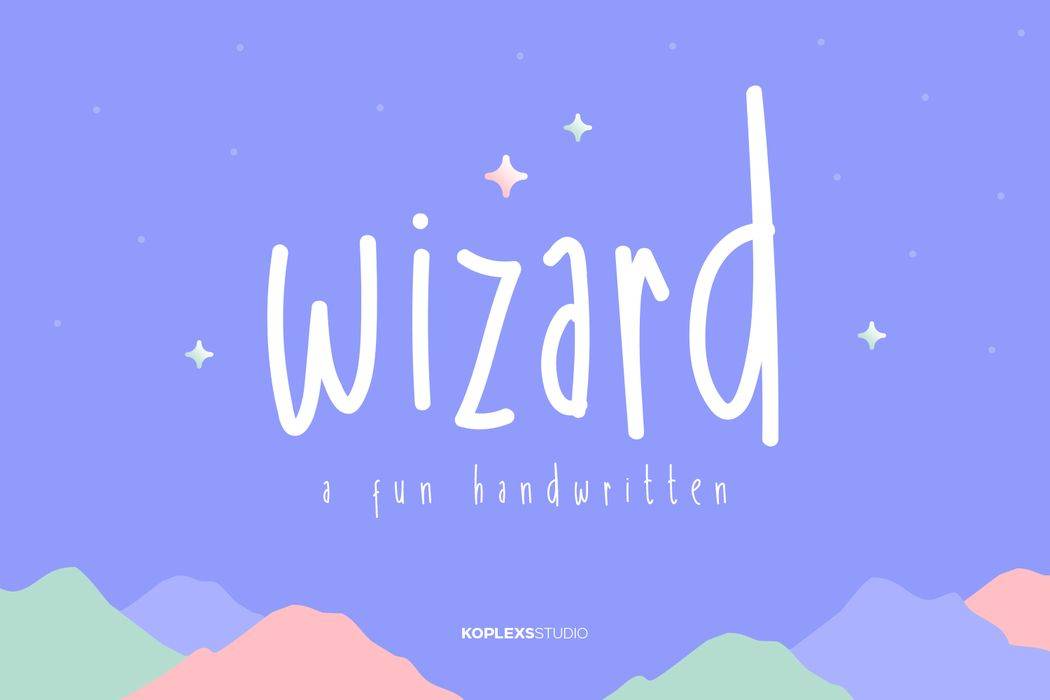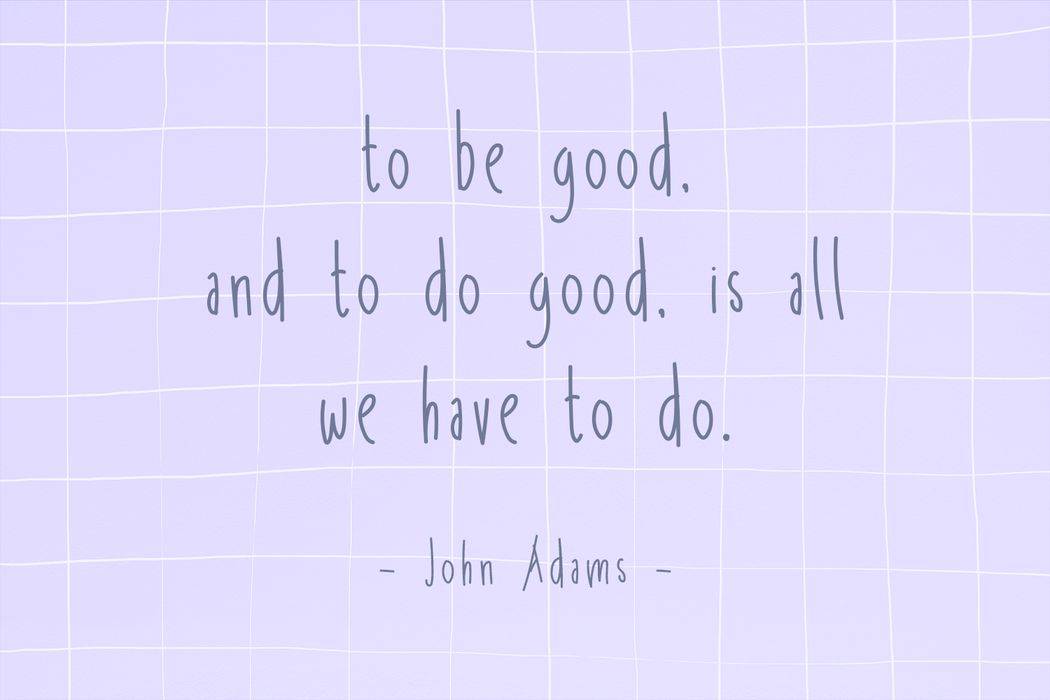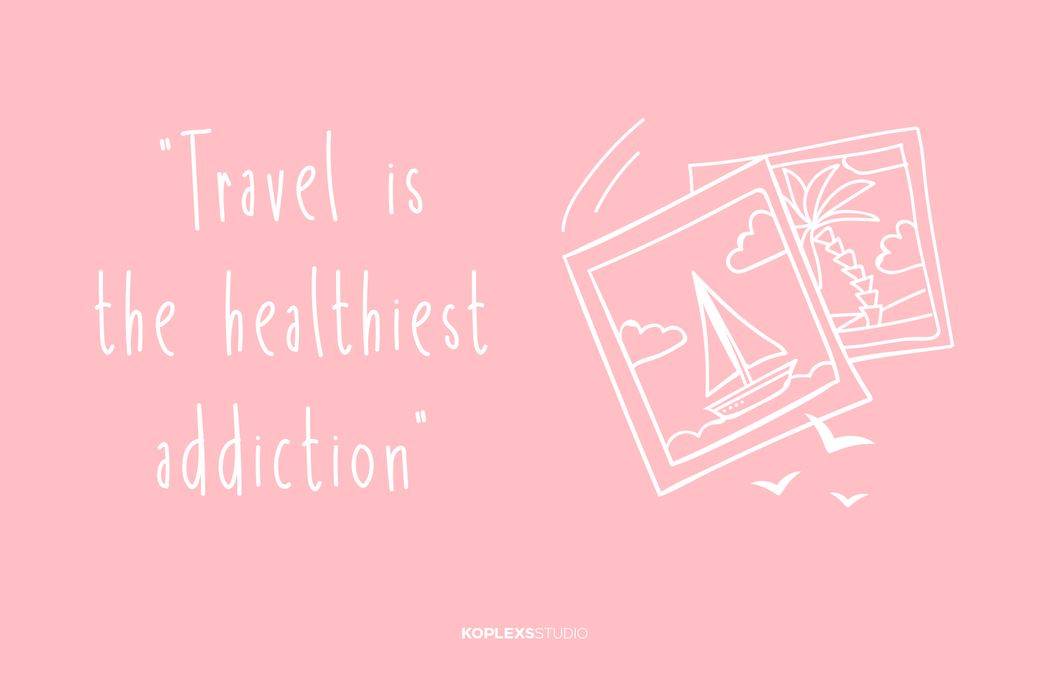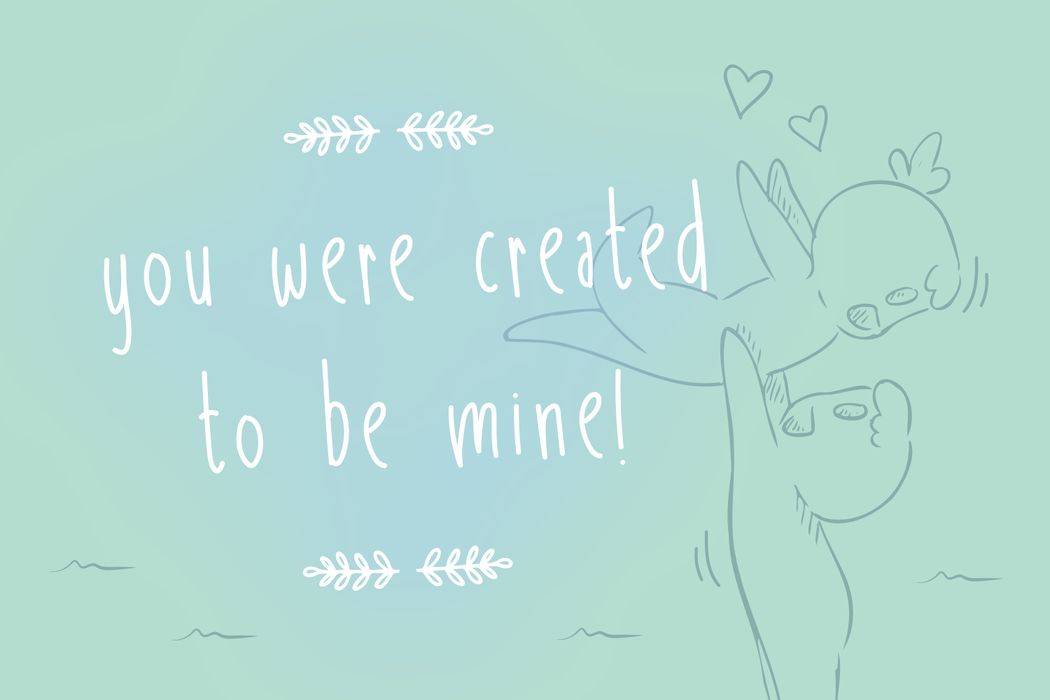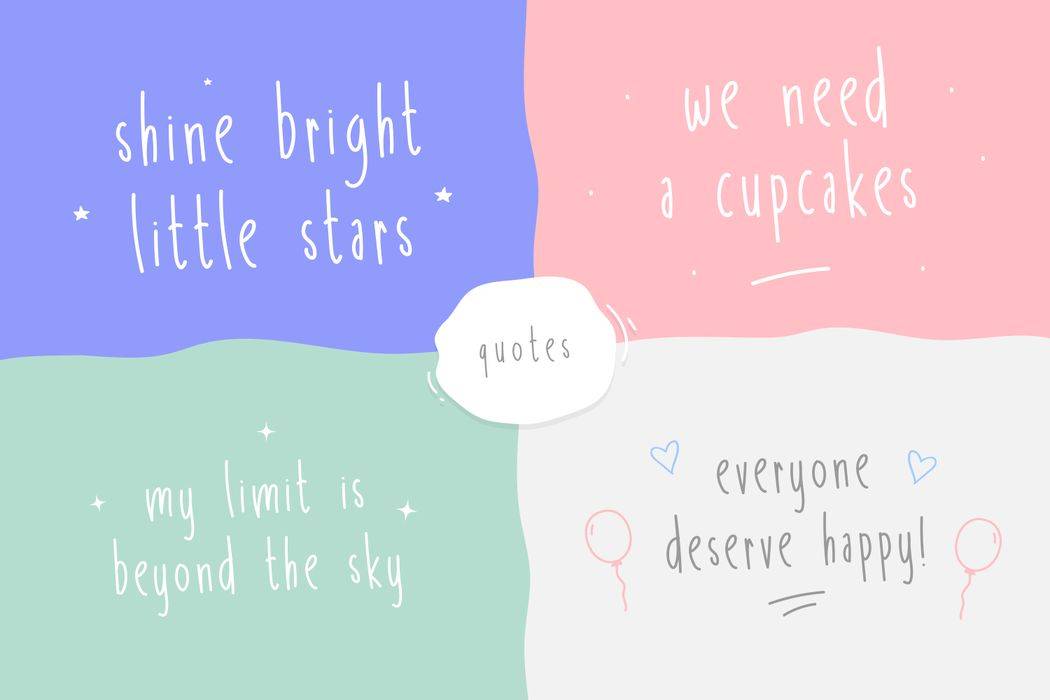
Wizard Font is a whimsical, hand-drawn sans serif with tall, narrow letterforms and a playful, slightly irregular stroke that evokes a magical, casual vibe. Its light weight and airy spacing make it perfect for creative projects, children’s content, or branding that seeks a friendly, inquisitive personality. This font works best in headlines, invitations, or logos where a unique, imaginative touch is desired.
Wizard Font
About Wizard Font
| Font family | Wizard Font |
| Release date | 2021-12-12 |
| Designer | Ahmad Muslimin |